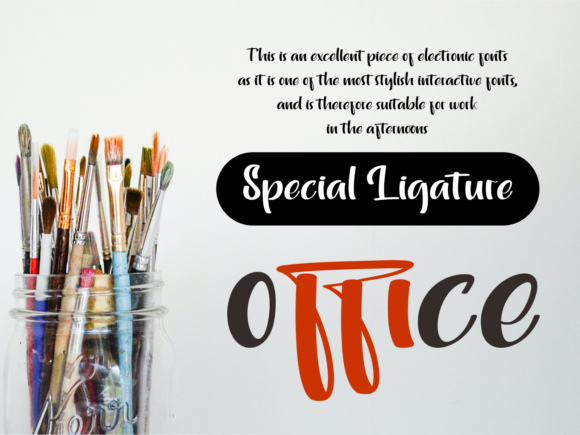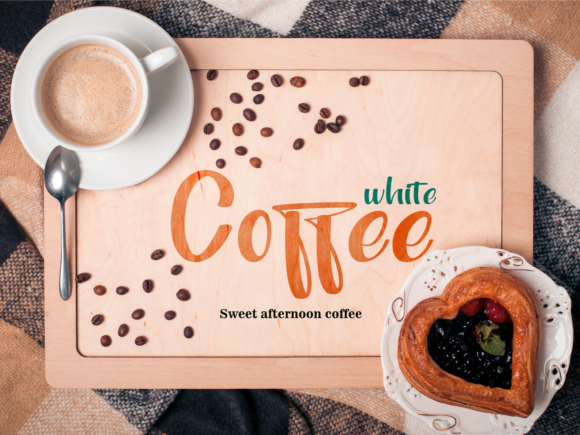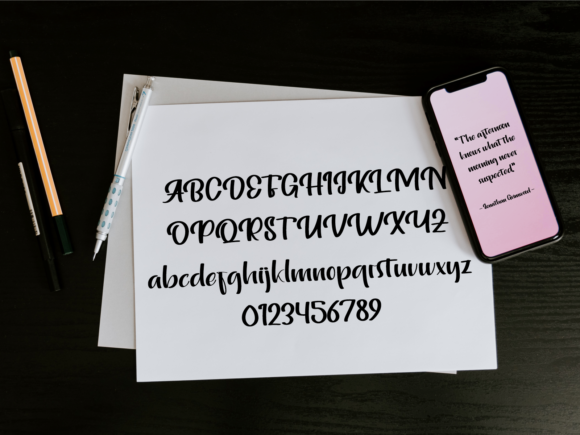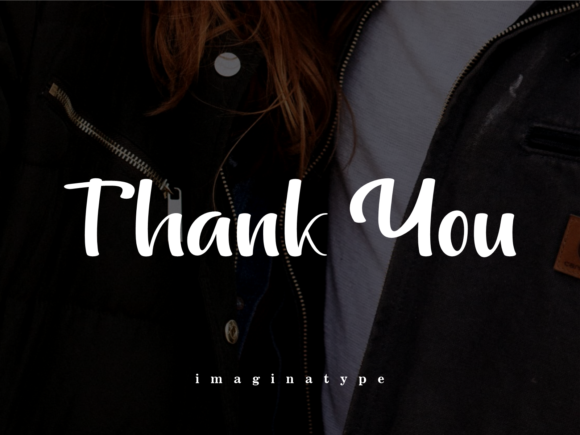
Introducing Afternoon Font: Elevate Your Creativity with this Modern Script Font
Are you a designer, crafter, or DIY enthusiast looking for a font that can add a touch of elegance and sophistication to your projects? Look no further than Afternoon Font, a simple yet modern script font that is perfect for a wide range of creative applications. In this article, we’ll take a closer look at Afternoon Font, its features, and how it can help you turn your creative ideas into stunning works of art.
What is Afternoon Font?
Afternoon Font is a beautiful script font that is designed to be both simple and modern. Its clean lines, flowing curves, and elegant letterforms make it perfect for a variety of projects, from social media graphics and DIY crafts to invitations, posters, and more. Whether you’re looking for a font to add a personal touch to your handmade projects or a calligraphy script to elevate your digital designs, Afternoon Font is an excellent choice.
Key Features of Afternoon Font
So, what makes Afternoon Font so special? Here are some of its key features:
- Simple and Modern Design: Afternoon Font has a clean and modern design that is both elegant and sophisticated.
- Script Font: This font is a true script font, with flowing curves and connected letterforms that give it a beautiful, handwritten feel.
- Versatile: Afternoon Font can be used for a wide range of projects, from social media graphics and DIY crafts to invitations, posters, and more.
- Easy to Read: Despite its elegant design, Afternoon Font is easy to read, making it perfect for both digital and print applications.
Uses for Afternoon Font
So, what can you use Afternoon Font for? The possibilities are endless! Here are a few ideas to get you started:
- Social Media Graphics: Add a touch of elegance to your social media graphics with Afternoon Font. Use it to create stunning Instagram posts, Facebook graphics, and more.
- DIY Crafts: Afternoon Font is perfect for DIY crafts, such as handmade cards, invitations, and decorations.
- Invitations and Stationery: Use Afternoon Font to create beautiful invitations, stationery, and other paper goods.
- Posters and Flyers: Add a touch of sophistication to your posters and flyers with Afternoon Font.
Why Choose Afternoon Font?
So, why should you choose Afternoon Font for your next project? Here are just a few reasons:
- Unique and Elegant Design: Afternoon Font has a unique and elegant design that will set your projects apart from the rest.
In conclusion, Afternoon Font is a beautiful and modern script font that is perfect for designers, crafters, and DIY enthusiasts. Its simple yet elegant design makes it perfect for a wide range of creative applications, from social media graphics and DIY crafts to invitations, posters, and more. With its ease of use, affordability, and unique design, Afternoon Font is an excellent choice for anyone looking to elevate their creativity and turn their ideas into stunning works of art.